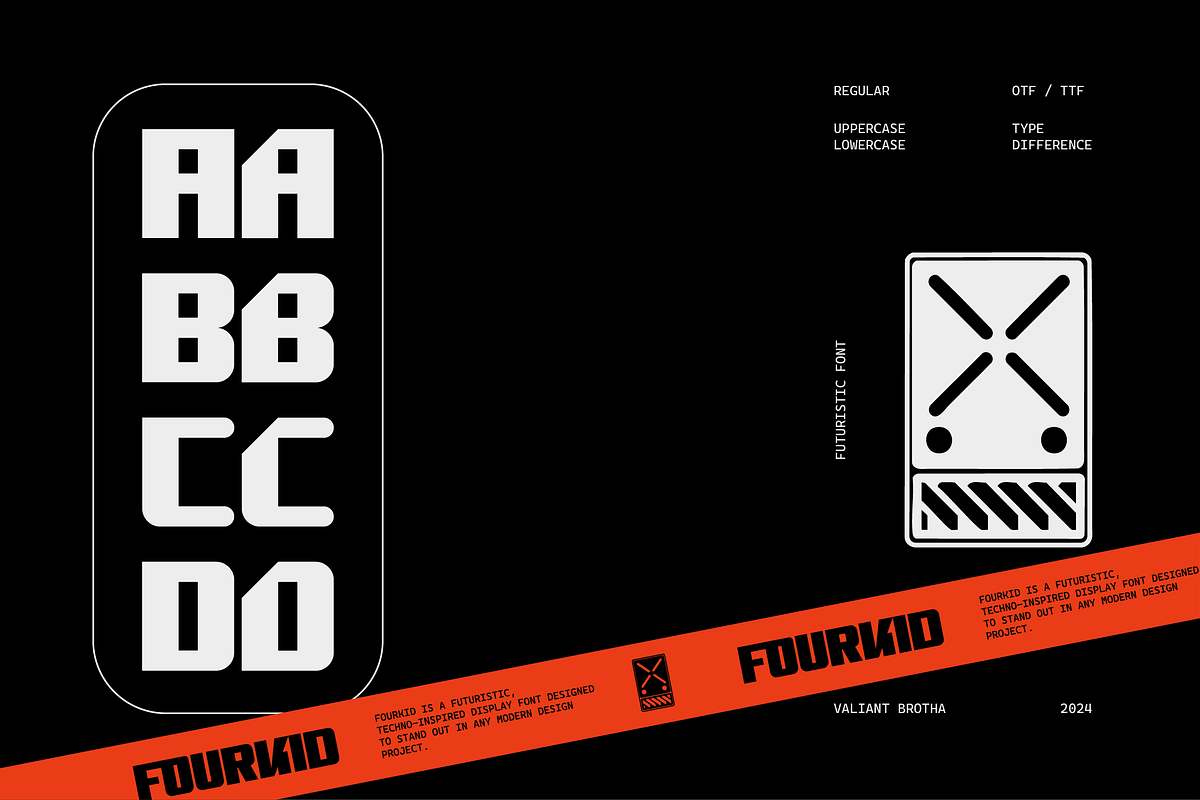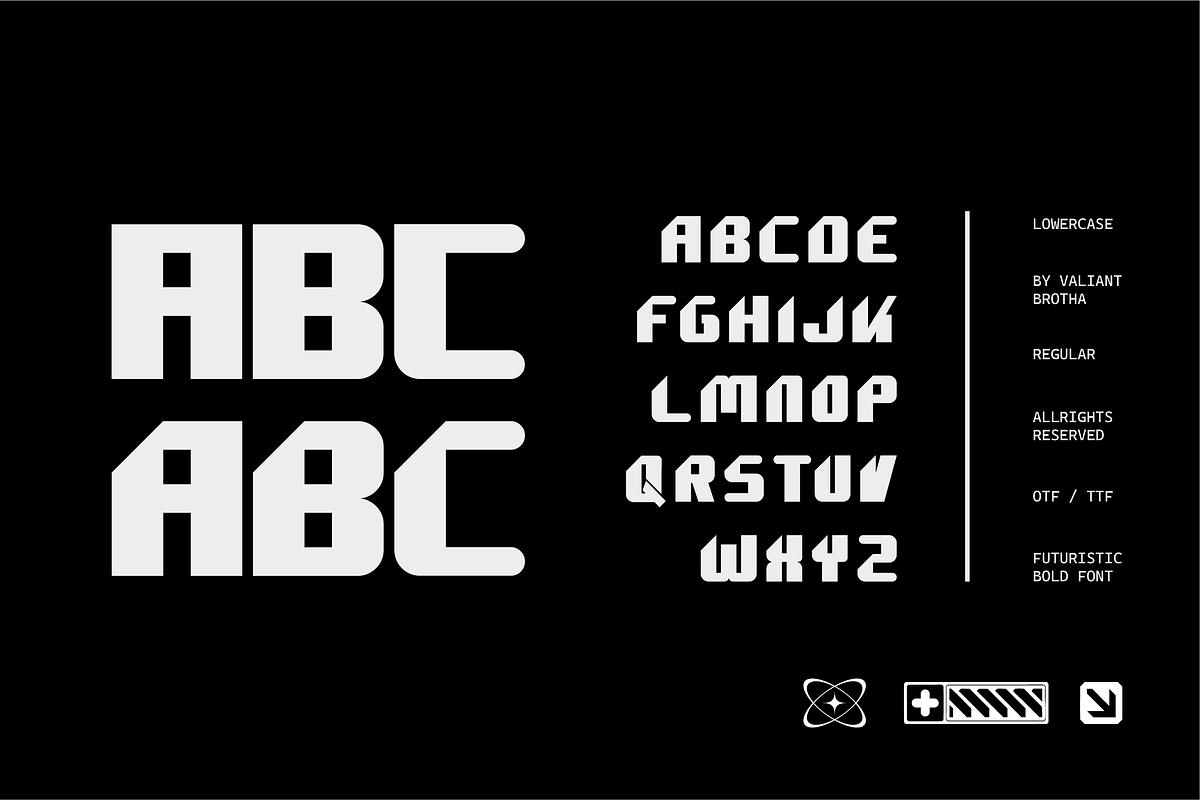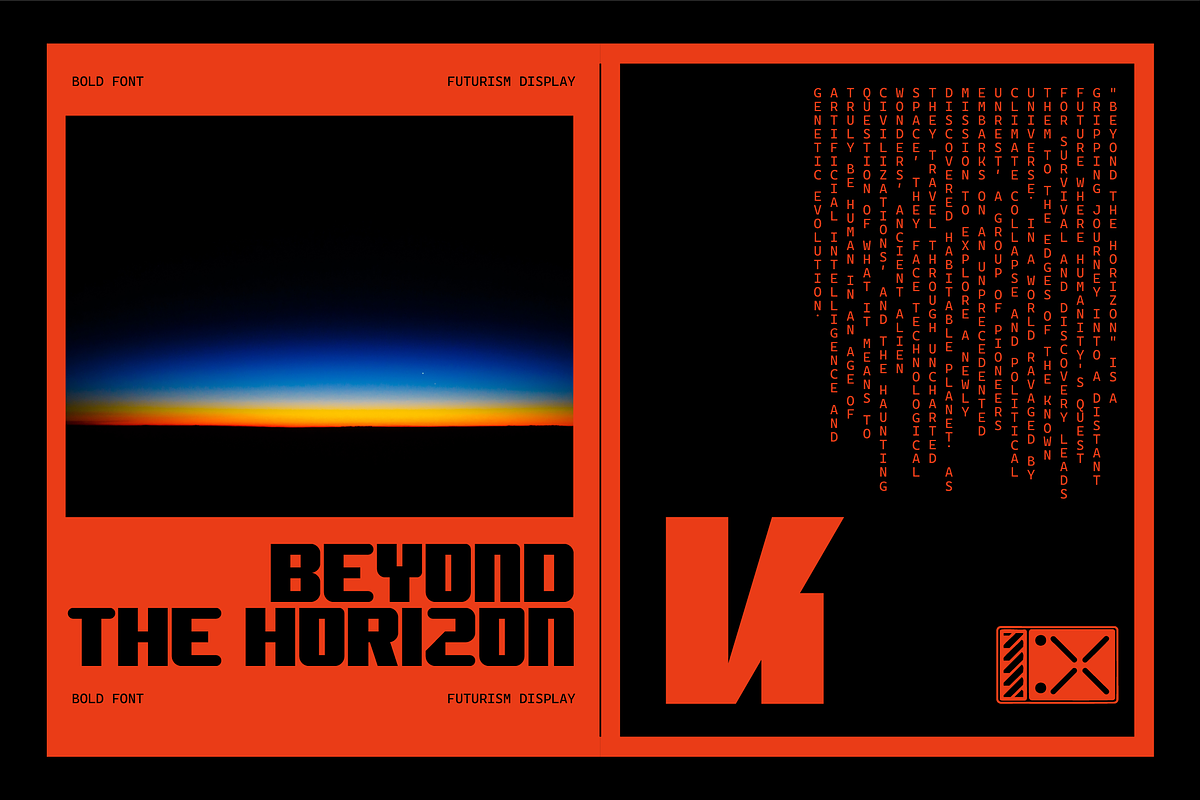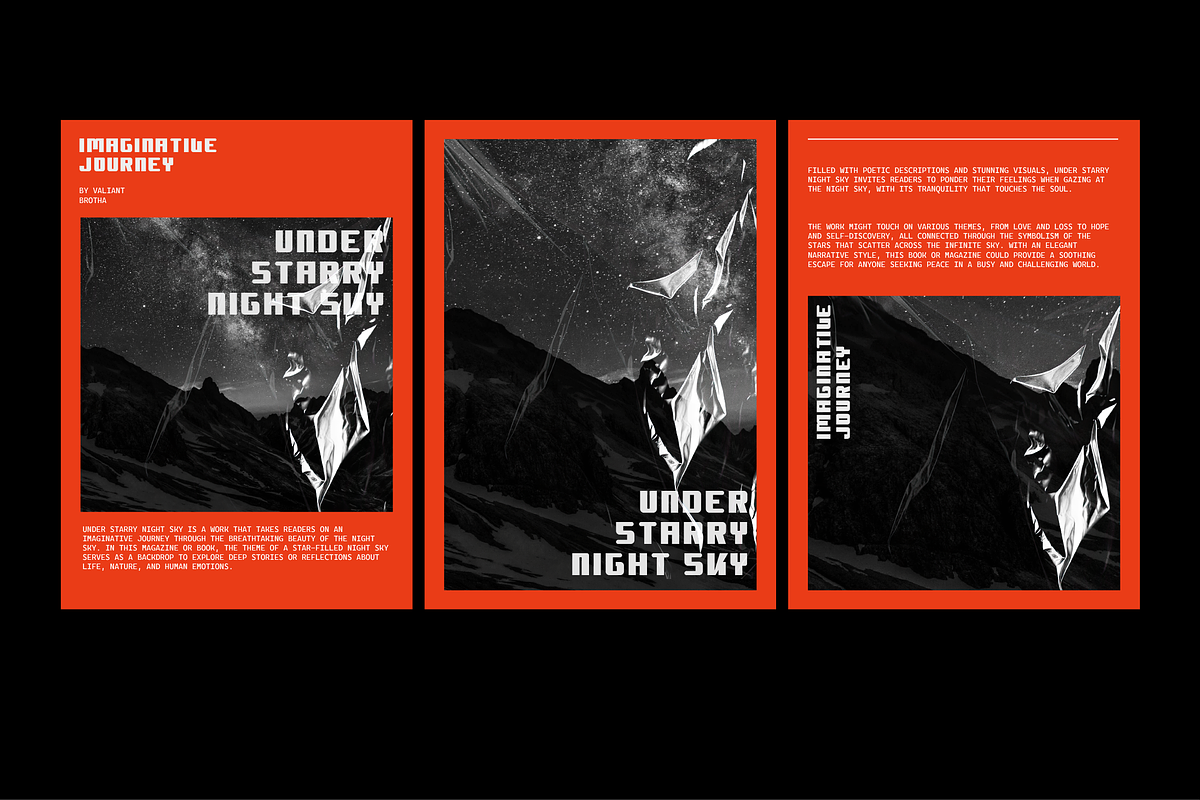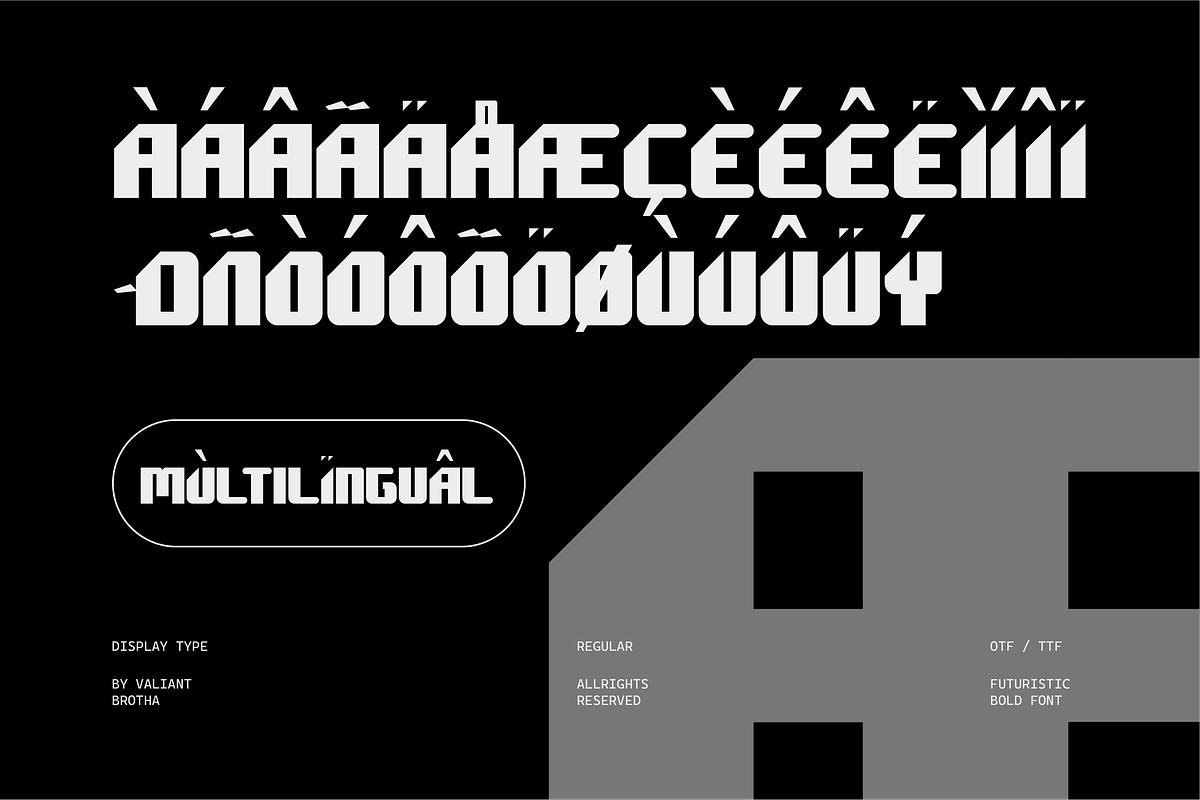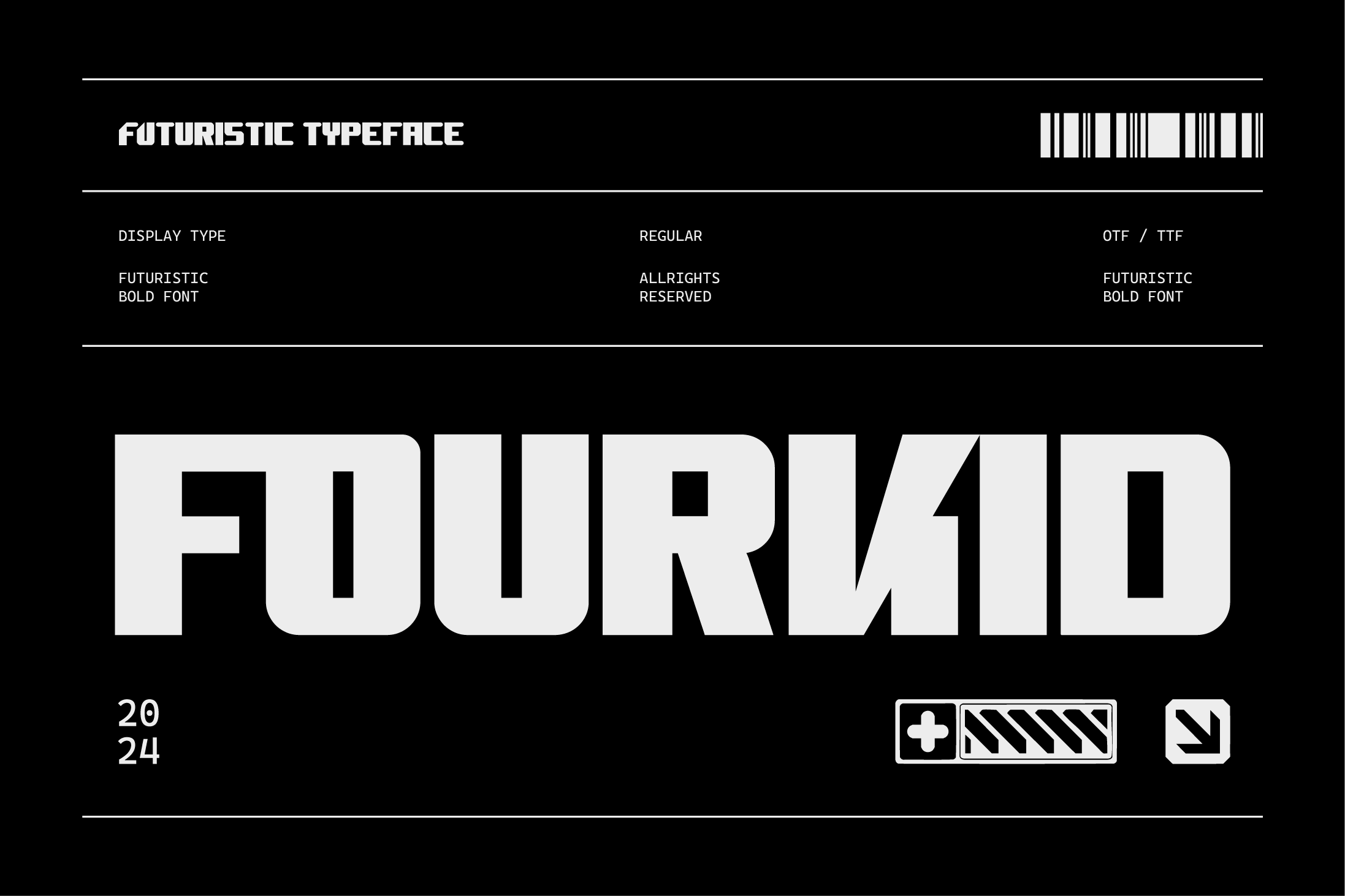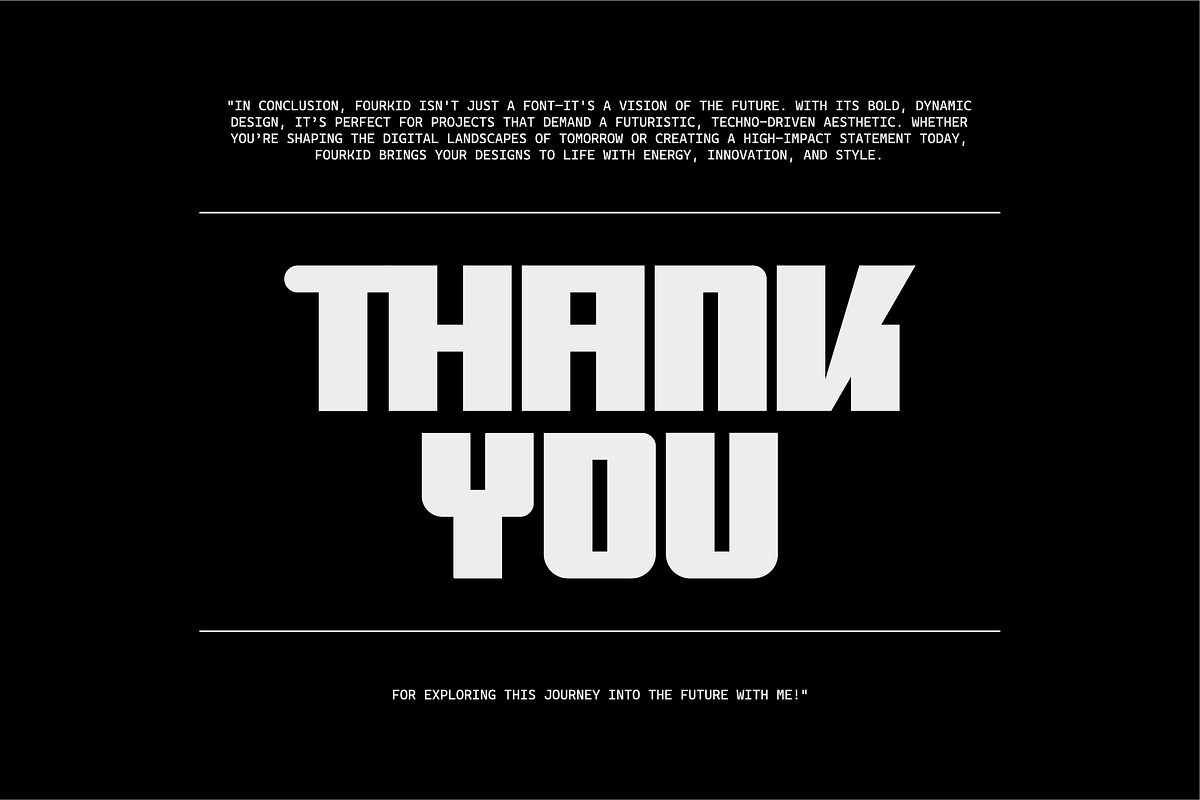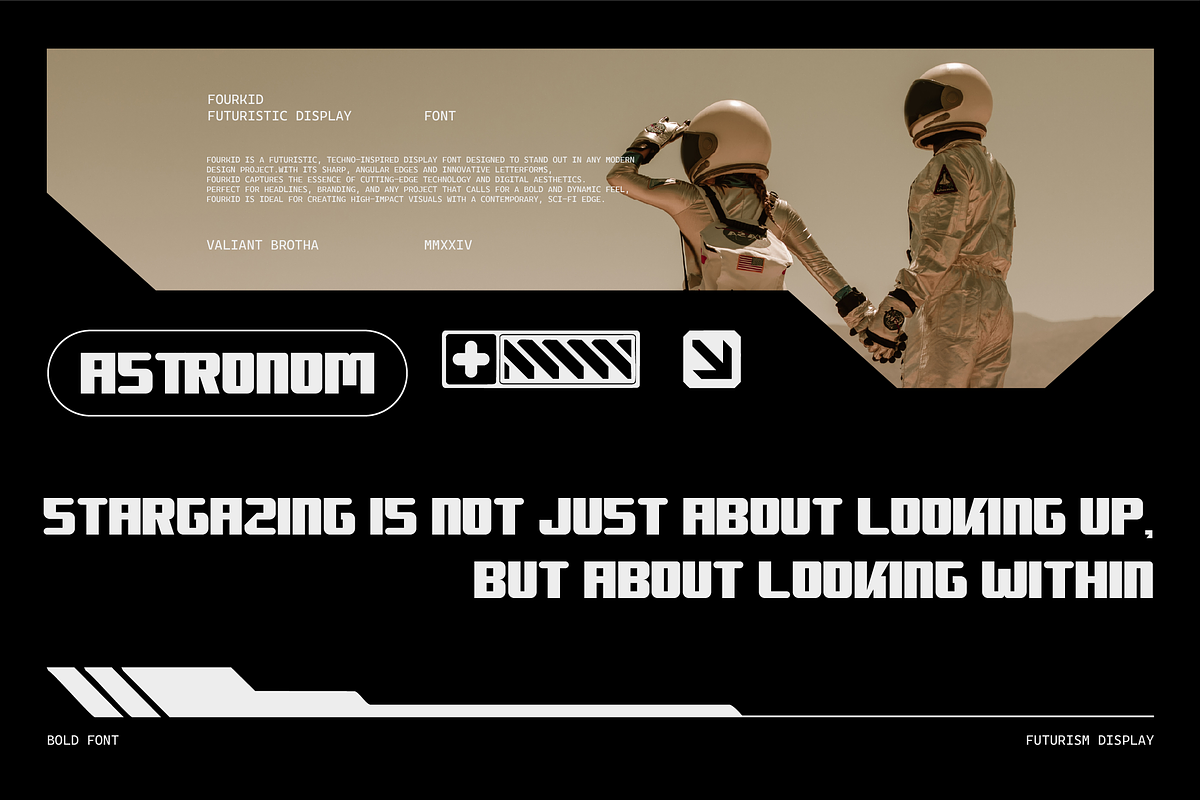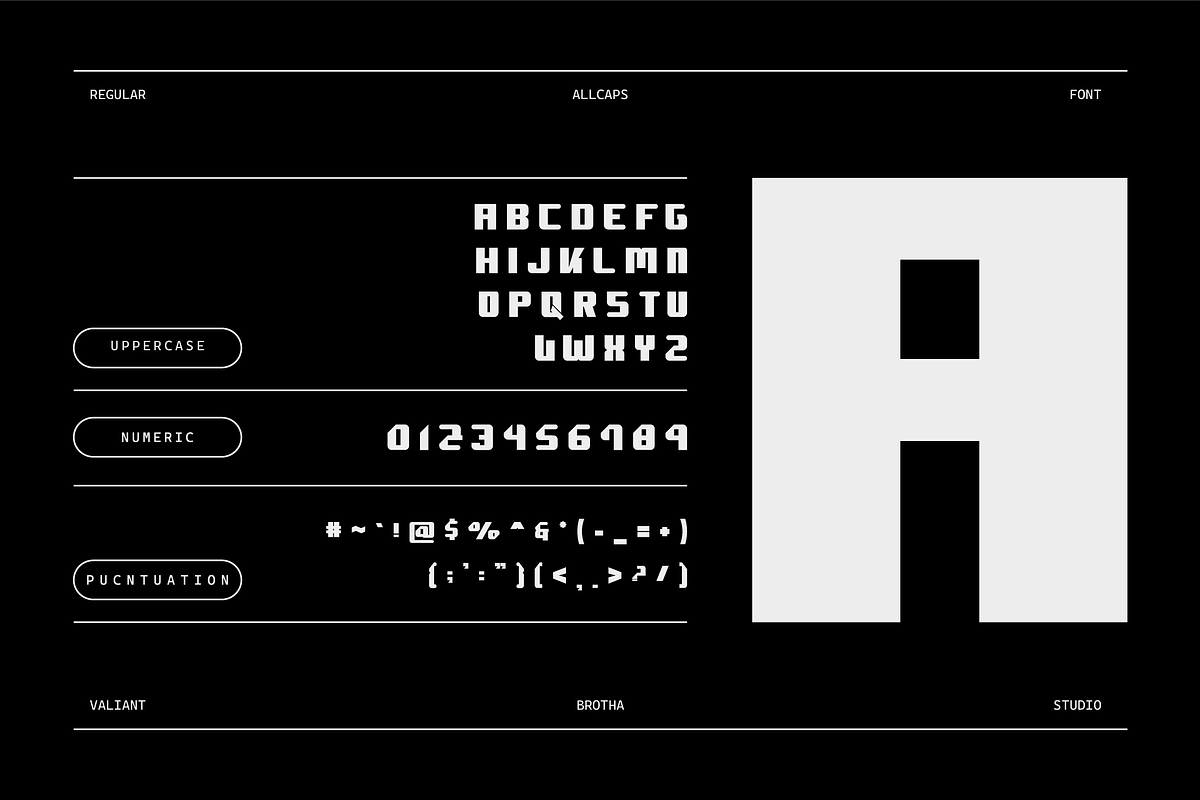
VB Fourkid - Futuristic Font
Fourkid is a futuristic, techno-inspired display font designed to stand out in any modern design project. With its sharp, angular edges and innovative letterforms, Fourkid captures the essence of cutting-edge technology and digital aesthetics. Perfect for headlines, branding, and any project that calls for a bold and dynamic feel, Fourkid is ideal for creating high-impact visuals with a contemporary, sci-fi edge.